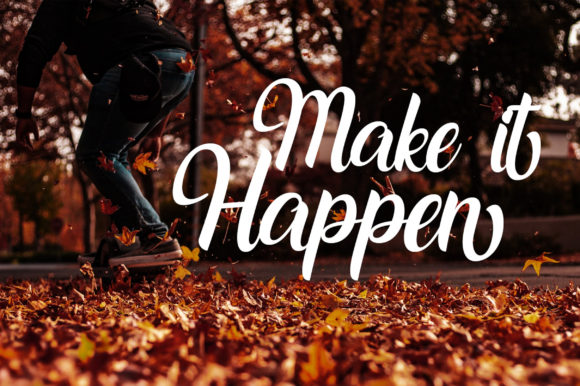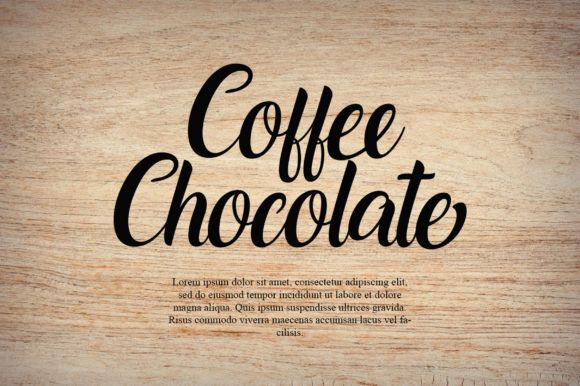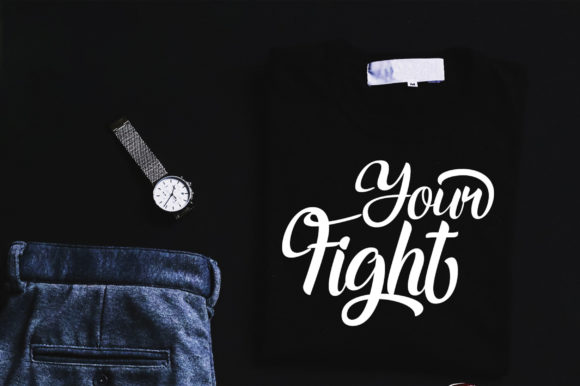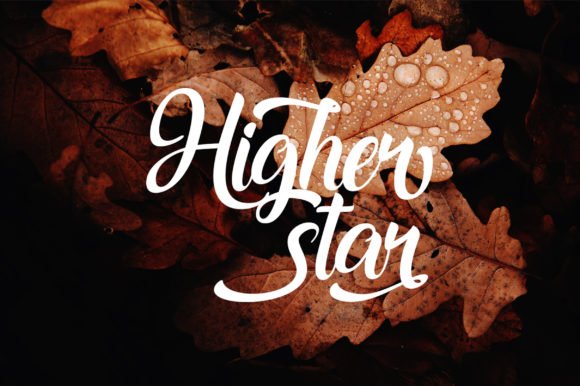
Introduction to Higher Star Font
Higher Star is an amazing script that features natural curves.
Use it to add a unique charm to any design project .
Key Features of Higher Star Font
Why Choose Higher Star Font?
Higher Star Font offers exceptional quality and versatility, making it a valuable addition to your design toolkit. Whether you’re creating for personal projects or commercial use, Higher Star Font delivers professional results.